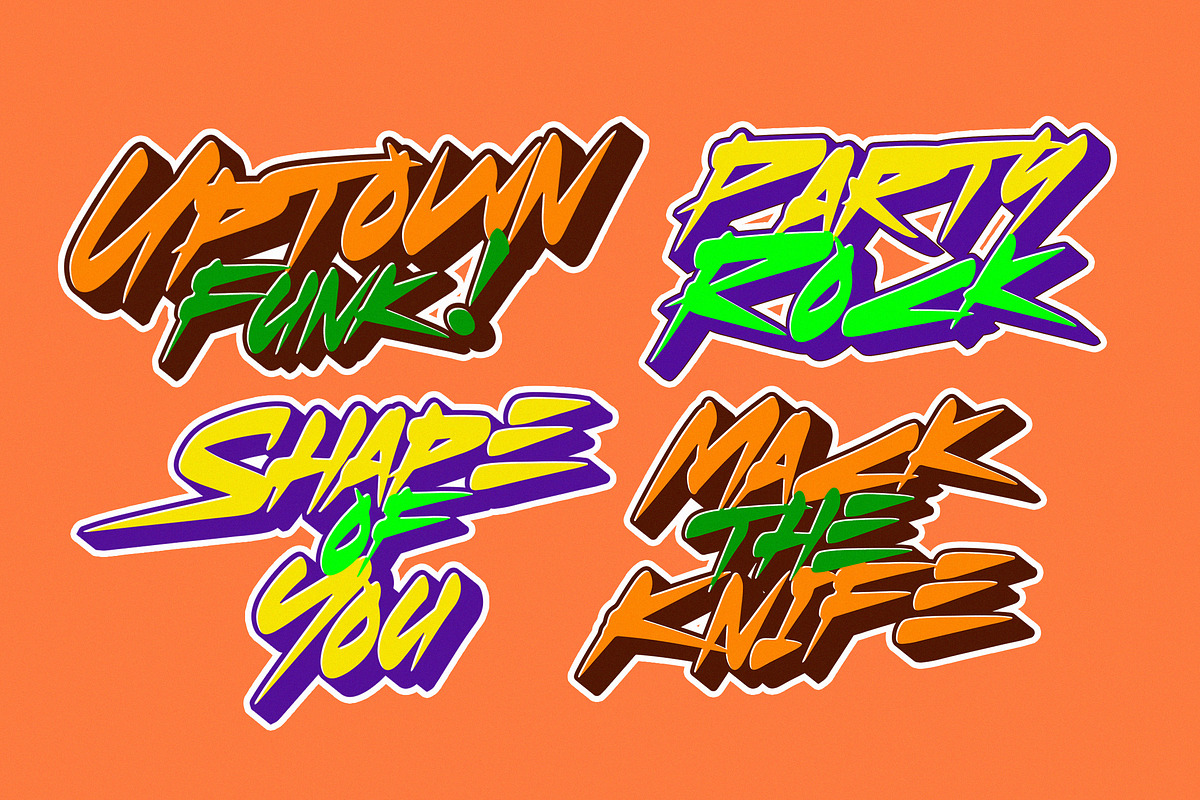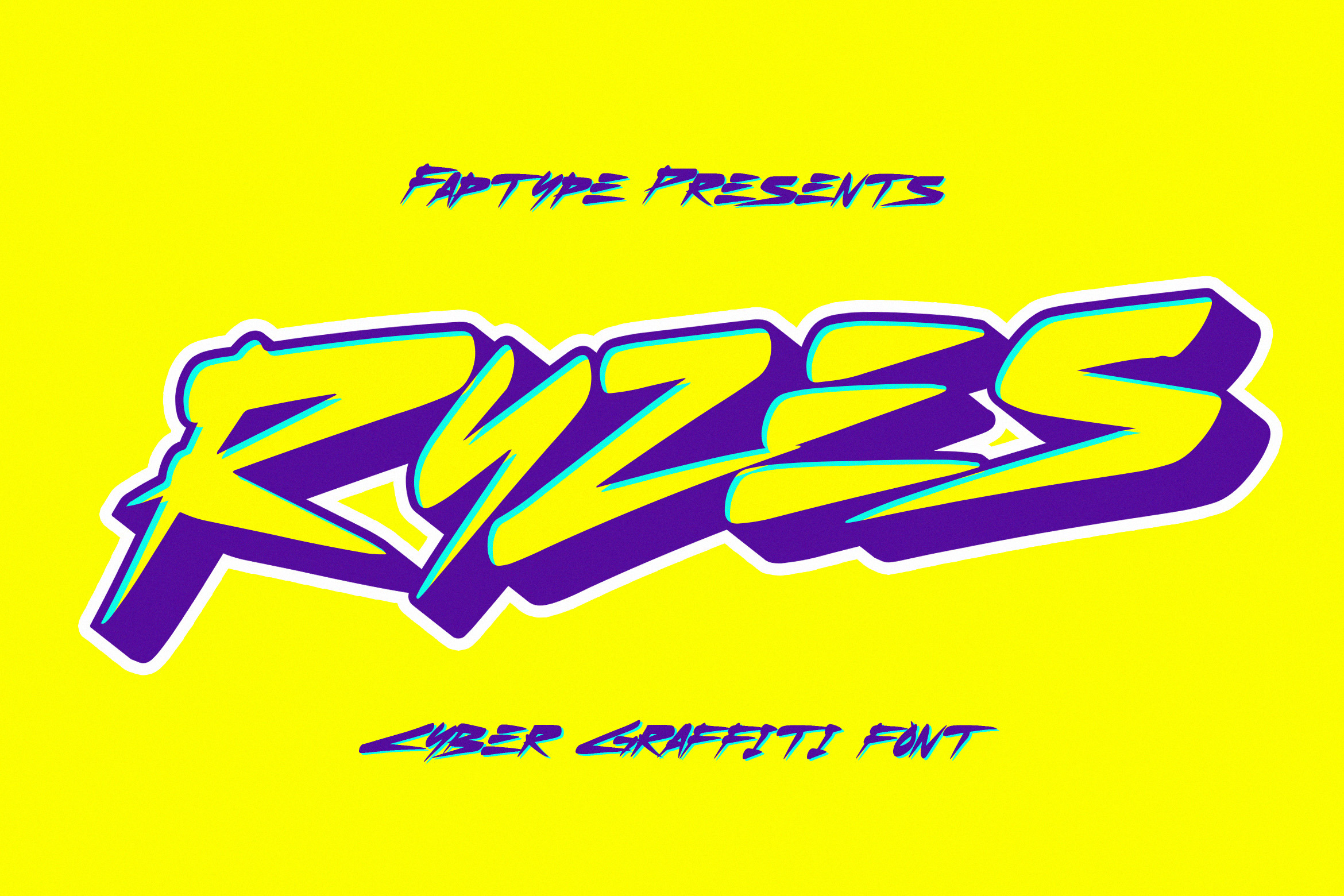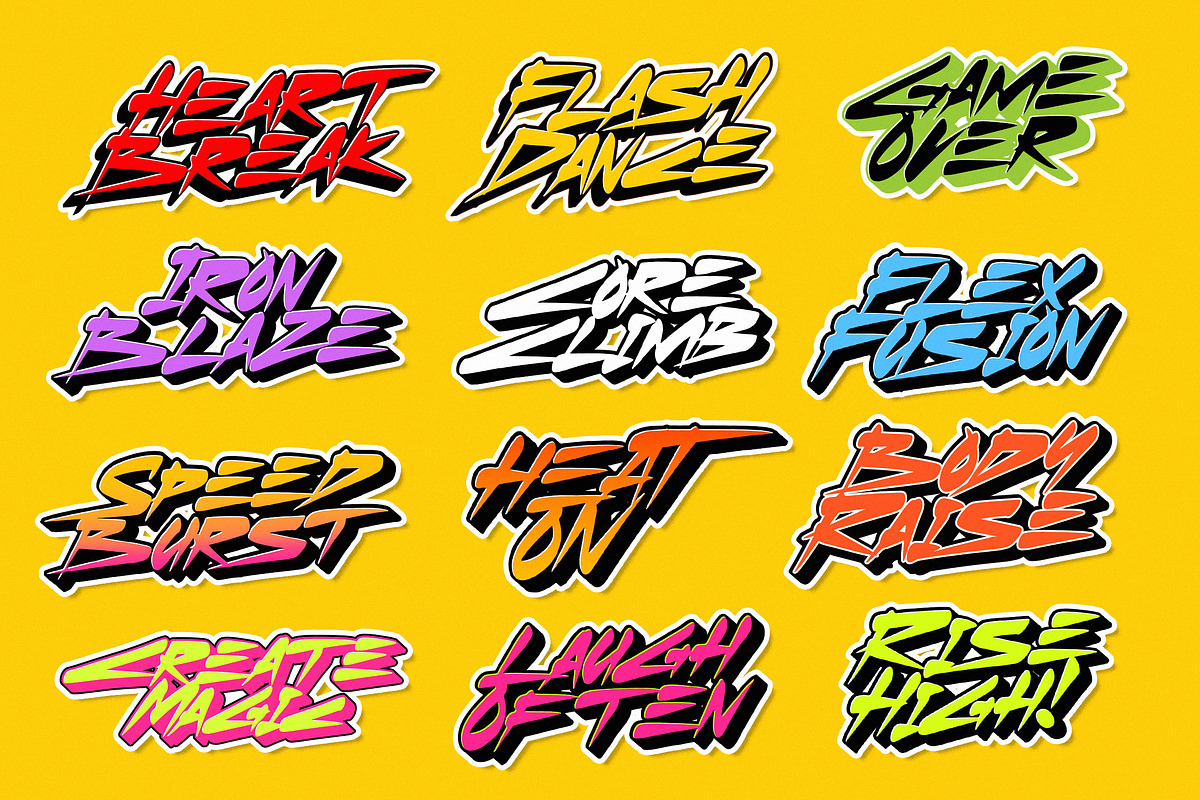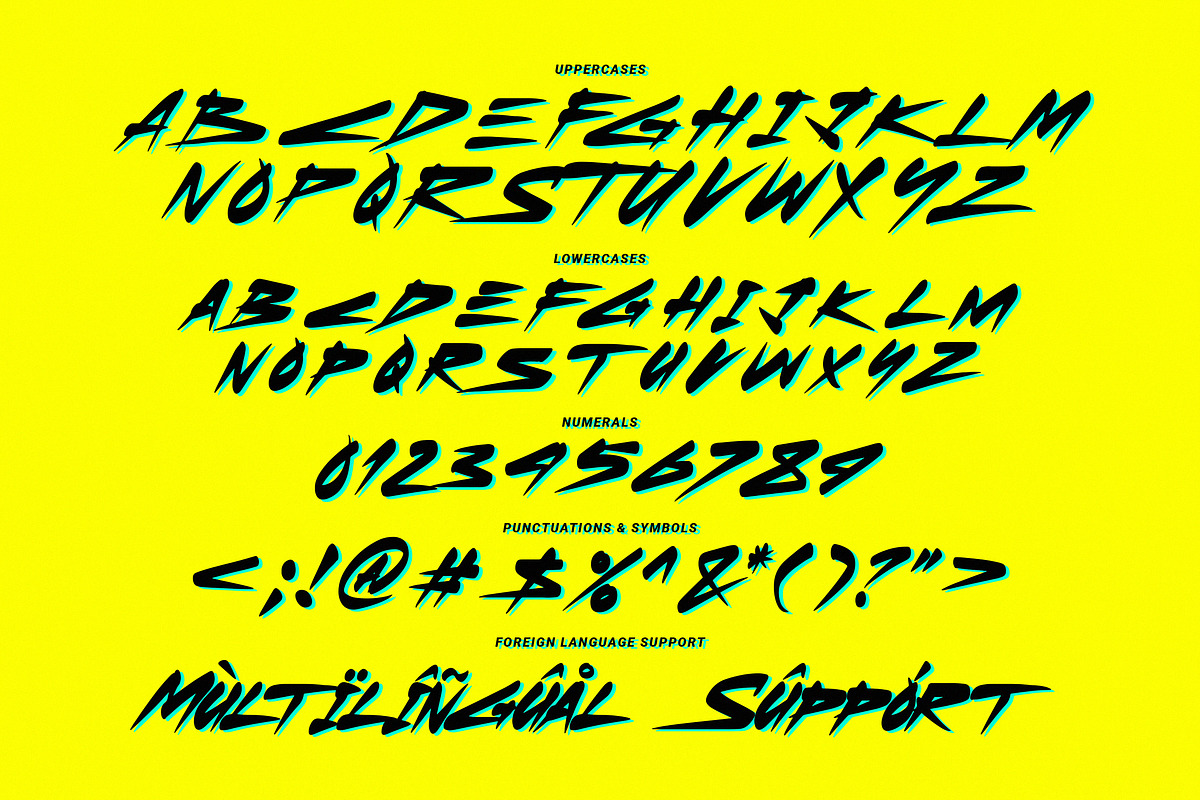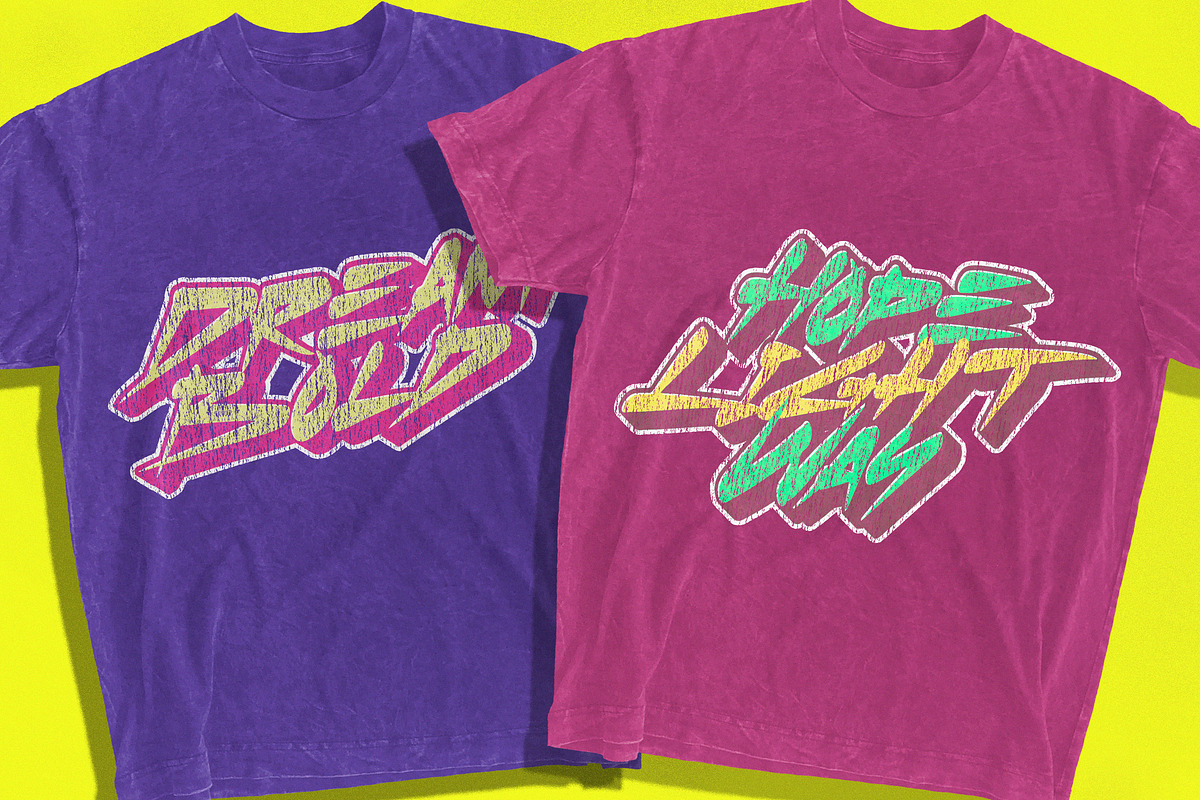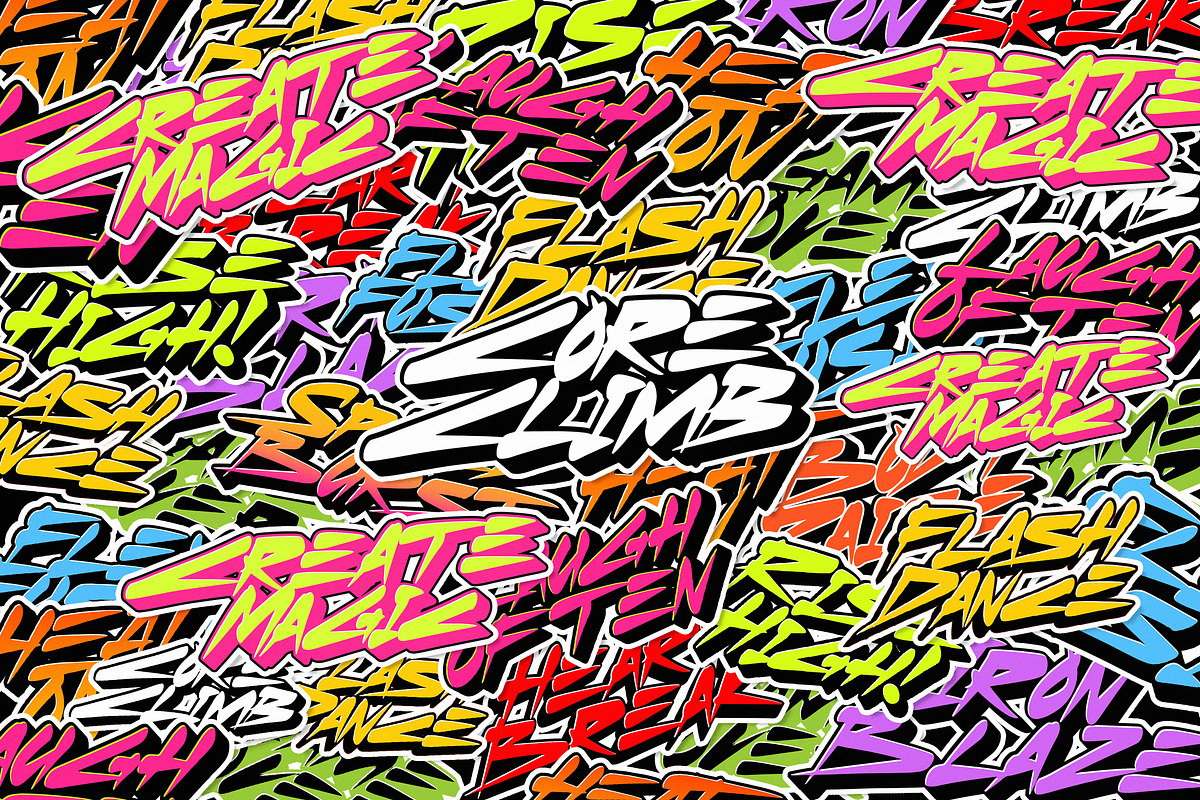
Ryzes | Cyber Graffiti Font Vol. 4
Introducing "Ryzes", – a font that plunges you into the immersive world of cyber graffiti with a distinct cyberpunk feel. This font is your gateway to a dystopian digital realm, combining edgy aesthetics with a futuristic vibe that speaks of rebellion and technology.
"Ryzes" captures the very essence of the cyberpunk genre, offering a text that embodies the rebellious and high-tech spirit of a dystopian future. Each character resonates with the anarchic energy and unconventional style of cyber graffiti, making your designs pop with a captivating and distinctive edge.
In our globalized world, language is a bridge that knows no borders. "Ryzes" is equipped with extensive multi-language support, ensuring that your message can be effectively communicated to audiences around the world, regardless of language or script.
Complete Character Set: "Ryzes" boasts a comprehensive character set that includes both uppercase and lowercase letters, numerals, and a rich selection of symbols and punctuations. This versatility ensures that your text is not only visually stunning but also functionally adaptable.
But that's not all. "Ryzes" takes your creativity a step further with an extruded version. This adds depth and dimension to your designs, allowing you to effortlessly create 3D text that embodies the cyberpunk aesthetic. The combination of the regular and extruded styles offers endless possibilities for crafting captivating 3D designs.
Whether you're working on cyberpunk-inspired branding, futuristic posters, or any project that demands a cyber graffiti aesthetic, "Ryzes" is your ultimate companion for pushing the boundaries of design. Dive into a world where rebellion meets technology, and let "Ryzes" be your creative tool in crafting designs that resonate with the electrifying spirit of the cyberpunk genre in 2D and 3D dimensions, bursting with color and pop culture excitement.
Ryzes features:
A full set of Uppercase and Lowercase
Numbers and punctuation
Multilingual language support
PUA Encoded Characters
OpenType Features
Layered Style
+274 Total Glyphs